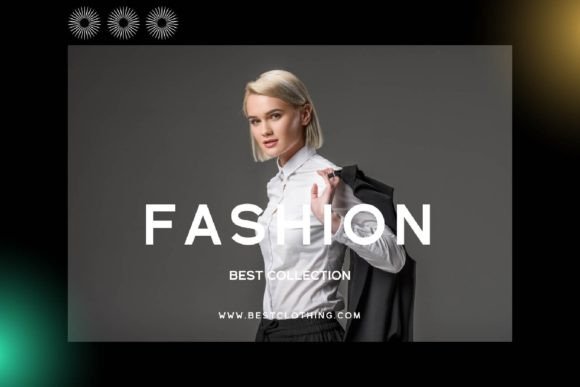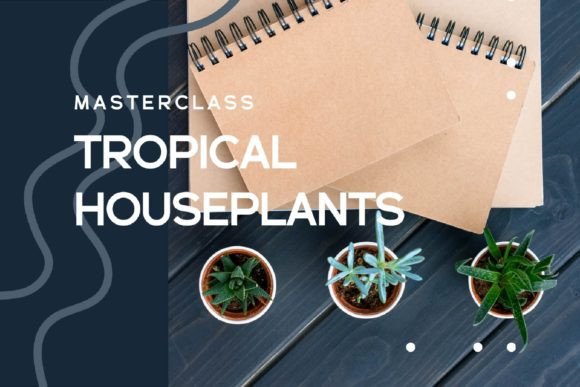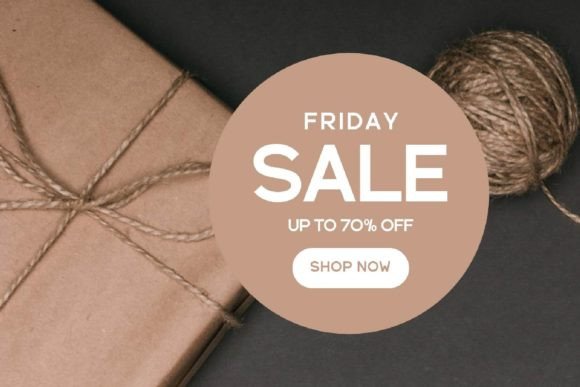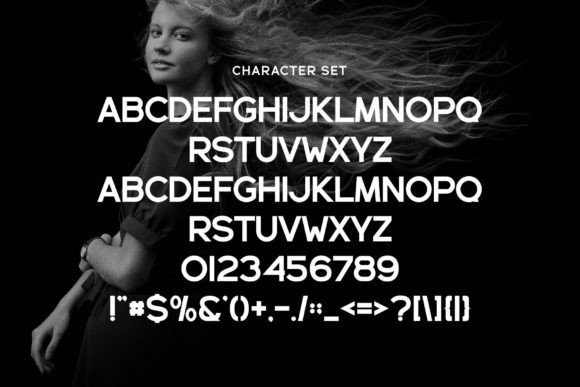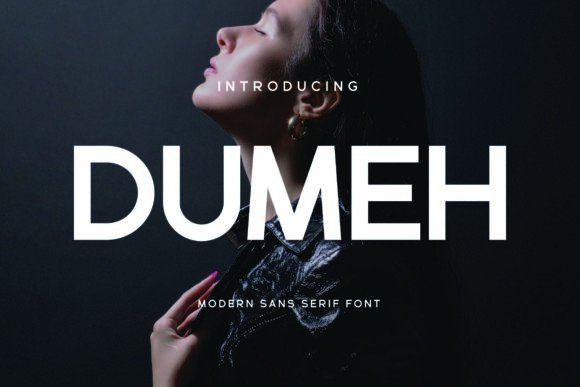
Dumeh Font: The Ultimate Sans Serif Font for Modern Designers
In the world of design, fonts play a crucial role in conveying the message and aesthetic of a brand or project. For designers and crafters looking for a clean, modern, and versatile font, Dumeh Font is an excellent choice. Inspired by famous minimalist logos, Dumeh is a sans serif font that has become a go-to for various design applications.
What is Dumeh Font?
Dumeh Font is a sans serif font, characterized by its clean lines, simplicity, and elegance. The font’s design is inspired by some of the most iconic minimalist logos, making it perfect for designers who aim to create modern and sophisticated designs. Dumeh’s simplicity and clarity make it highly legible, ensuring that your message is conveyed effectively.
Key Features of Dumeh Font
- Clean and Simple Design: Dumeh’s design is based on minimalist principles, making it perfect for modern designs that require a clean and elegant look.
- Sans Serif: The font’s sans serif design ensures that it remains legible even at small sizes, making it suitable for a wide range of applications.
- Highly Versatile: Dumeh can be used for various design purposes, including templates, brochures, videos, advertising, branding, logos, invitations, and more.
- Elegant and Sophisticated: Dumeh’s design exudes elegance and sophistication, making it perfect for beauty designs, crafting, and other applications where a premium look is desired.
Use Cases for Dumeh Font
Dumeh Font is incredibly versatile and can be used in a variety of design applications. Here are some of the most popular use cases:
- Designing Templates: Dumeh is perfect for designing templates for brochures, flyers, and other marketing materials.
- Branding and Advertising: The font’s clean and modern design makes it suitable for branding and advertising applications, including logos, billboards, and digital ads.
- Video and Motion Graphics: Dumeh’s simplicity and legibility make it an excellent choice for video and motion graphics, including titles, subtitles, and lower thirds.
- Invitations and Stationery: The font’s elegant design makes it perfect for invitations, stationery, and other paper goods.
- Beauty and Crafting: Dumeh’s sophisticated look makes it suitable for beauty designs, crafting, and other applications where a premium aesthetic is desired.
Benefits of Using Dumeh Font
Using Dumeh Font offers several benefits, including:
- Improved Legibility: Dumeh’s clean design ensures that your message is conveyed effectively, even at small sizes.
- Enhanced Aesthetic: The font’s elegant design adds a touch of sophistication to your designs, making them stand out.
- Increased Versatility: Dumeh can be used in a wide range of applications, making it a valuable addition to your font library.
- Time-Saving: With Dumeh, you can create professional-looking designs quickly and easily, saving you time and effort.
In conclusion, Dumeh Font is an excellent choice for designers and crafters looking for a clean, modern, and versatile font. Its sans serif design, simplicity, and elegance make it perfect for various design applications, from templates and branding to video and motion graphics. With its improved legibility, enhanced aesthetic, increased versatility, and time-saving benefits, Dumeh Font is a valuable addition to any designer’s font library.